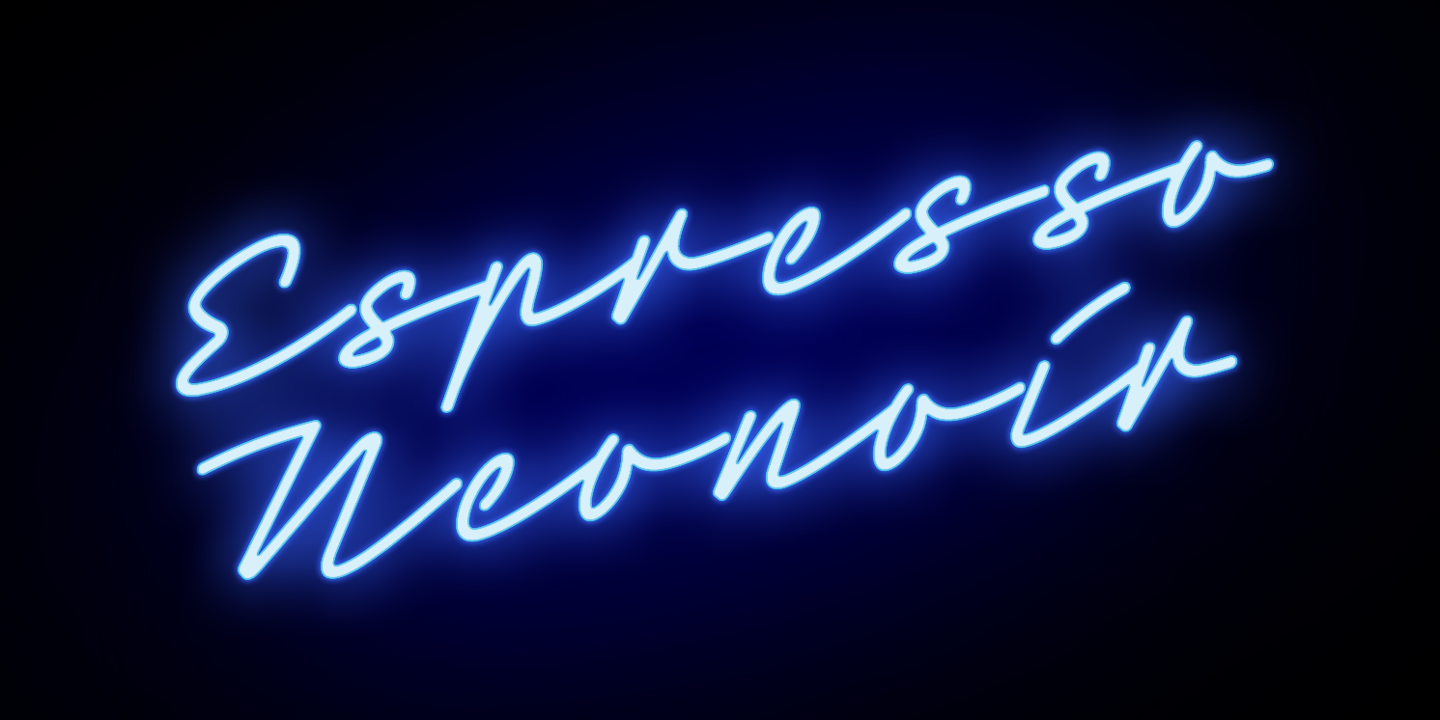
Neonoir Font is perfect for cyberpunk gaming interfaces, futuristic nightclub branding, dark sci-fi movie titles, neo-noir film productions, underground music venues, dystopian novel covers, retro-futuristic advertising, neon-lit bar signage, electronic music promotions, and mysteriously electrifying marketing communications.
Neonoir Font is exciting because it channels the electric darkness and neon-soaked atmosphere of cyberpunk futures with its dramatically illuminated letterforms that seem to pulse with synthetic energy and embody the shadowy rebellion that thrives in the spaces between digital dreams and analog nightmares. Its futuristically dark character design reflects both the technological sophistication of cyber-enhanced worlds and the human struggle for identity in landscapes dominated by corporate power and artificial light, making it perfect for brands exploring the intersection of technology and underground culture.
Neonoir Font family includes thin, light, regular, medium, bold, and black weights, each with corresponding italic versions. The font family also features cyberpunk ornaments, neon-inspired ligatures, futuristic symbols, and dark technological decorative elements that enhance its electric aesthetic and neo-noir versatility.
This electrically dark typeface represents the perfect fusion of cyberpunk innovation and noir atmosphere. Neonoir Font Free Download enables designers to experience its cyber-noir potential before making a commercial commitment. The font's ability to convey both futuristic technology and underground rebellion makes it ideal for gaming companies, electronic music labels, and entertainment brands targeting audiences fascinated by cyberpunk culture and neo-noir aesthetics.
Whether you're developing cyberpunk gaming identities, creating electronic music materials, or designing futuristic entertainment communications, Neonoir Font brings an unmistakable sense of electric rebellion and cyber-noir atmosphere to every project. Its neon character and cyberpunk heritage create powerful connections that resonate with audiences seeking futuristic experiences and underground cultural authenticity.
The font's versatility excels in gaming and entertainment environments where technological atmosphere and dark aesthetics are essential. Its cyber-noir character makes it particularly effective for gaming studios, electronic music venues, futuristic entertainment companies, and underground brands seeking to establish electric relationships with audiences passionate about cyberpunk culture and neo-noir experiences.
For designers working on projects requiring genuine cyberpunk appeal and neo-noir atmosphere, Neonoir Font offers an exceptional solution. Its electrically dark presence and comprehensive cyber-themed elements provide the tools needed for creating truly futuristic communications, while its underground authenticity ensures your designs capture the electric rebellion and technological mystery that defines the most compelling cyberpunk experiences and neo-noir entertainment.